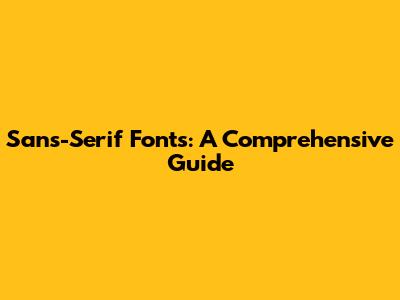
Sans-Serif Fonts: Guide, Uses, And Examples
Hey guys! Ever wondered about those sleek, modern fonts that seem to be everywhere these days? We're talking about sans-serif fonts! In this comprehensive guide, we're diving deep into the world of sans-serif typography. We'll explore what they are, where they came from, why they're so popular, and how to use them effectively in your own designs. So, buckle up and get ready to become a sans-serif font aficionado!
What are Sans-Serif Fonts?
Let's kick things off with the basics. The term "sans-serif" comes from the French word "sans," meaning "without." So, quite literally, sans-serif fonts are fonts without serifs. But what exactly are serifs, you might ask? Serifs are those little decorative strokes or “feet” that you see at the end of letter strokes in some fonts (think Times New Roman). Fonts with these little feet are called serif fonts.
Sans-serif fonts, on the other hand, have clean, unadorned letterforms. They lack these extra strokes, giving them a more modern and minimalist appearance. This clean aesthetic is one of the main reasons they've become a staple in contemporary design. To fully understand the impact of sans-serif fonts, let's delve into their history, uses, and the psychology behind their appeal.
In the world of typography, sans-serif fonts are those workhorses that get the job done with style and clarity. Think of Helvetica, Arial, or Open Sans – these are the fonts you see on websites, in logos, and across various branding materials. Their simplicity lends them a modern, approachable vibe, making them a favorite among designers and marketers alike. But what makes them so versatile? Let's find out.
When we talk about the characteristics of sans-serif fonts, it's crucial to emphasize their clean lines and geometric forms. This design choice immediately communicates a sense of modernity and efficiency. Unlike their serif counterparts, which have those little "feet" or strokes at the ends of the letters, sans-serif fonts are stripped down to their essential shapes. This simplicity isn't just about aesthetics; it's about functionality. These fonts are highly legible, especially in digital environments, where screen resolution can sometimes make the finer details of serif fonts appear blurry. It's no wonder they've become a go-to choice for websites and mobile apps.
History and Evolution of Sans-Serif Fonts
The story of sans-serif fonts is a fascinating journey through typographic innovation. While serif fonts have a long and storied history dating back to ancient Roman inscriptions, sans-serif fonts are relatively new kids on the block. They emerged in the early 19th century, and their arrival marked a significant shift in typographic design. Early examples were often referred to as "grotesque" or "gothic" due to their stark contrast with the more traditional serif styles. These early sans-serif fonts were seen as bold and somewhat rebellious, challenging the established norms of typography.
The late 19th and early 20th centuries saw a gradual acceptance and refinement of sans-serif fonts. The Bauhaus movement, with its emphasis on functional design and geometric forms, played a crucial role in popularizing these fonts. Designers like Herbert Bayer and Paul Renner championed sans-serif typefaces, creating iconic fonts that are still in use today. Renner's Futura, for example, is a classic example of a geometric sans-serif font that exudes a sense of modernity and precision.
One of the turning points in the history of sans-serif fonts was the development of Helvetica in 1957. Designed by Max Miedinger and Eduard Hoffmann, Helvetica quickly became one of the most widely used fonts in the world. Its clean lines, neutral appearance, and excellent readability made it a favorite for everything from corporate branding to signage systems. Helvetica's popularity cemented the status of sans-serif fonts as a dominant force in the world of typography.
The digital age has further propelled the popularity of sans-serif fonts. Their clean, simple forms render beautifully on screens, making them ideal for websites, apps, and other digital interfaces. Fonts like Arial, Open Sans, and Roboto have become ubiquitous on the web, providing a clear and legible reading experience. The evolution of sans-serif fonts is a testament to the ongoing interplay between technology, design, and cultural trends.
Key Characteristics of Sans-Serif Fonts
So, what exactly sets sans-serif fonts apart? The most obvious characteristic, as we’ve already mentioned, is the absence of serifs. But there's more to it than just that! Sans-serif fonts generally have a more uniform stroke weight, meaning the thickness of the lines that make up the letters is more consistent. This gives them a clean and modern appearance.
Another key characteristic is their geometric structure. Many sans-serif fonts are based on simple geometric shapes, such as circles, squares, and triangles. This gives them a sense of order and precision. Think of Futura, with its perfectly circular “O” and its sharp, angular lines. This geometric quality makes sans-serif fonts feel very contemporary and streamlined.
Sans-serif fonts also tend to have a larger x-height, which is the height of the lowercase letters relative to the uppercase letters. A larger x-height makes the text easier to read, especially in smaller sizes. This is one of the reasons why sans-serif fonts are often used for body text on websites and in other digital applications.
In summary, the key characteristics of sans-serif fonts include:
- Absence of serifs
- Uniform stroke weight
- Geometric structure
- Large x-height
These characteristics combine to create a typeface that is clean, modern, and highly legible.
Types of Sans-Serif Fonts
The world of sans-serif fonts is vast and diverse. While they all share the common trait of lacking serifs, they come in a wide range of styles and personalities. Understanding the different types of sans-serif fonts can help you choose the right one for your project. Here are some of the main categories:
1. Grotesque Sans-Serif
Grotesque sans-serif fonts are the earliest form of sans-serif typefaces, originating in the 19th century. They often have a slightly awkward or quirky appearance compared to more modern styles. The stroke weight tends to be quite uniform, and the letterforms can feel a bit heavy. Some classic examples of grotesque sans-serif fonts include Akzidenz-Grotesk and Franklin Gothic.
2. Neo-Grotesque Sans-Serif
Neo-grotesque sans-serif fonts are a refinement of the grotesque style, developed in the mid-20th century. They have a cleaner, more neutral appearance and are generally more legible than their predecessors. Helvetica and Arial are prime examples of neo-grotesque sans-serif fonts. These fonts are incredibly versatile and widely used in various applications.
3. Geometric Sans-Serif
Geometric sans-serif fonts are based on simple geometric shapes, such as circles, squares, and triangles. They have a very clean and modern appearance, often conveying a sense of precision and efficiency. Futura and Avenir are two of the most well-known geometric sans-serif fonts. These fonts are often used in logos and branding materials.
4. Humanist Sans-Serif
Humanist sans-serif fonts are designed to be more warm and approachable than other sans-serif styles. They often have a more calligraphic feel, with variations in stroke weight and a more organic appearance. Gill Sans and Myriad are examples of humanist sans-serif fonts. These fonts are often used for body text and other applications where readability is paramount.
5. Industrial Sans-Serif
Industrial sans-serif fonts are sturdy and functional, designed for use in industrial settings such as signage and technical documentation. They often have a bold, no-nonsense appearance and are highly legible. Examples include DIN and Eurostile. These fonts are great for projects that need a strong, reliable feel.
Examples of Popular Sans-Serif Fonts
Now that we've explored the different types of sans-serif fonts, let's take a look at some specific examples that you've likely encountered in your daily life. Recognizing these fonts and understanding their unique characteristics can help you make more informed decisions about typography in your own projects.
1. Helvetica
Helvetica is arguably the most famous sans-serif font in the world. Designed in 1957, it's a neo-grotesque typeface known for its neutrality and excellent readability. Helvetica is used extensively in corporate branding, signage systems, and graphic design. Its clean lines and balanced letterforms make it a versatile choice for a wide range of applications. The font's popularity stems from its ability to convey clarity and professionalism, making it a go-to for businesses and organizations seeking a reliable and modern aesthetic.
2. Arial
Arial is another widely used neo-grotesque sans-serif font. It was designed in the 1980s as a competitor to Helvetica and is often considered a Helvetica alternative. Arial shares many of the same characteristics as Helvetica, including its clean lines and excellent readability. While it's often used as a system font on computers, its versatility extends to various design projects. The main difference between Arial and Helvetica lies in subtle design nuances, such as the slant of the terminals and the overall spacing, but both serve similar purposes in the design world.
3. Futura
Futura is a geometric sans-serif font designed in the 1920s. Its letterforms are based on simple geometric shapes, giving it a very clean and modern appearance. Futura is often used in logos, headlines, and other display applications. The font's sharp angles and circular forms give it a distinctive, futuristic vibe, making it a popular choice for brands looking to convey innovation and sophistication. Its visual appeal and strong geometric foundation make it a standout in the world of typography.
4. Open Sans
Open Sans is a humanist sans-serif font designed specifically for use on screens. It has a large x-height and a wide aperture, making it highly legible even at small sizes. Open Sans is a popular choice for websites, apps, and other digital interfaces. The font's friendly and approachable character makes it an excellent choice for body text, as it ensures a comfortable reading experience. Its open letterforms and optimized design for screens have made it a favorite among web designers and developers.
5. Roboto
Roboto is another humanist sans-serif font that is widely used on the web. It was designed by Google as the system font for Android and has since become a popular choice for websites and apps. Roboto has a dual nature, combining geometric forms with friendly curves, making it versatile for both headlines and body text. Its adaptability and excellent readability across various screen sizes have solidified its place as a staple in digital typography.
When to Use Sans-Serif Fonts
Knowing when to use sans-serif fonts is just as important as understanding what they are. These fonts are incredibly versatile, but they excel in certain situations. Here are some guidelines to help you decide when to reach for a sans-serif typeface:
1. Digital Interfaces
Sans-serif fonts are generally the preferred choice for digital interfaces, such as websites, apps, and software. Their clean lines and large x-height make them highly legible on screens, even at small sizes. This is crucial for ensuring a comfortable reading experience for users. The clear and uncluttered appearance of sans-serif fonts minimizes eye strain, making them ideal for extended reading sessions online. Whether it's for body text, navigation menus, or user interface elements, sans-serif fonts provide the clarity needed for digital environments.
2. Headlines and Titles
Sans-serif fonts can be very effective for headlines and titles, especially when you want to convey a sense of modernity and simplicity. Their clean, bold forms grab attention and make a statement. Using sans-serif fonts in headings can create a visual hierarchy that is both clear and aesthetically pleasing. The strong, straightforward nature of these fonts makes them ideal for communicating key messages and drawing readers into the content.
3. Logos and Branding
Many companies choose sans-serif fonts for their logos and branding materials. These fonts can project a sense of professionalism, innovation, and trustworthiness. The minimalist aesthetic of sans-serif fonts aligns well with contemporary branding trends, making them a popular choice for businesses across various industries. From tech startups to established corporations, sans-serif fonts help create a visual identity that is clean, memorable, and adaptable across different media.
4. Signage and Wayfinding
Sans-serif fonts are often used for signage and wayfinding systems due to their excellent legibility at a distance. Their clear, uncluttered forms make it easy for people to read signs quickly and accurately. In environments such as airports, hospitals, and public transportation hubs, where clear communication is essential, sans-serif fonts are the go-to choice for ensuring effective navigation.
5. Modern and Minimalist Designs
If you're aiming for a modern or minimalist design aesthetic, sans-serif fonts are an excellent choice. Their simplicity and clean lines perfectly complement minimalist layouts and designs. The uncluttered appearance of these fonts reinforces the overall design concept, creating a cohesive and visually appealing composition. In projects where less is more, sans-serif fonts help convey the message without unnecessary embellishments.
Pairing Sans-Serif Fonts with Serif Fonts
One of the most effective ways to use sans-serif fonts is to pair them with serif fonts. This combination can create a visually appealing and balanced design. The contrast between the clean lines of sans-serif fonts and the decorative serifs of serif fonts can add depth and interest to your typography. Here are some tips for pairing these font styles effectively:
1. Use Sans-Serif for Headlines and Serif for Body Text
This is a classic and effective approach. The sans-serif font in the headline will grab attention, while the serif font in the body text will provide a comfortable reading experience. Serif fonts are often preferred for longer passages of text because their serifs help guide the eye across the page, improving readability. Pairing a bold sans-serif headline with a legible serif body text ensures a clear visual hierarchy and enhances the overall design.
2. Use Serif for Headlines and Sans-Serif for Body Text
Alternatively, you can use a serif font for the headline and a sans-serif font for the body text. This can create a more modern and minimalist look. However, it's important to choose a sans-serif font that is highly legible for body text, such as Open Sans or Roboto. This combination can provide a fresh and contemporary feel, while still maintaining excellent readability. It’s a great option for projects that aim for a clean and modern aesthetic.
3. Contrast Font Weights
When pairing sans-serif fonts with serif fonts, pay attention to the font weights. Using a bold sans-serif font with a regular weight serif font, or vice versa, can create a strong visual contrast. This helps to differentiate the different elements of your design and makes the text more engaging. Varying the weights adds visual interest and ensures that each element stands out effectively, contributing to a more dynamic and balanced design.
4. Consider the Mood and Tone
The fonts you choose should reflect the overall mood and tone of your design. A formal serif font might pair well with a classic sans-serif font, while a more playful serif font might pair better with a more contemporary sans-serif. It’s important to consider the context and message you want to convey. The right pairing can enhance the emotional impact of your design and create a cohesive visual narrative.
5. Limit the Number of Fonts
As a general rule, it's best to limit the number of fonts you use in a design to two or three. Using too many fonts can create a cluttered and confusing look. Sticking to a well-chosen pairing of a sans-serif and a serif font can create a harmonious and professional design. Simplicity in font selection often leads to a more impactful and polished final product.
So, there you have it – a deep dive into the world of sans-serif fonts! From their historical origins to their modern-day applications, these fonts have proven their versatility and staying power. Whether you're designing a website, creating a logo, or simply choosing a font for a document, understanding sans-serif fonts is essential for any designer or content creator.
Remember, the key to effective typography is choosing the right font for the right situation. And with their clean lines, modern aesthetic, and excellent readability, sans-serif fonts are a valuable tool in any designer's arsenal. So go ahead, experiment with these fonts, and see what you can create! Thanks for joining me on this typographic journey, guys! Keep experimenting and creating amazing designs!